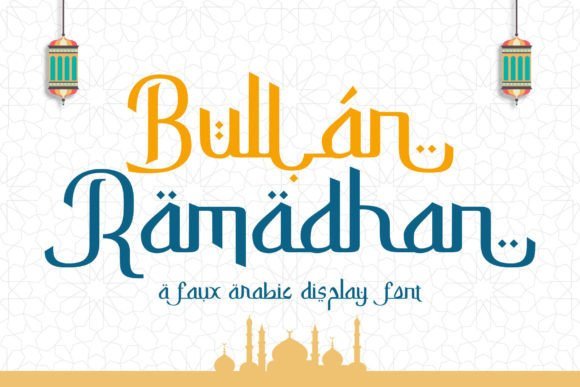
The Perfect Blend of Modernity and Tradition: Introducing the Bullan Ramadhan Font
As designers, we often find ourselves searching for the perfect font to capture the essence of a project. Whether it’s a branding campaign or a poster for a cultural event, we want a font that speaks to our audience and sets the tone for the message we’re trying to convey. For many designers, finding a font that perfectly balances modernity and tradition can be a challenge.
Enter the Bullan Ramadhan Font, a clean, modern, and faux Arabic display font designed to evoke the beauty and elegance of Arabic calligraphy. This versatile font is perfect for a wide range of applications, from logos and business cards to websites and posters. With its unique blend of modernity and tradition, the Bullan Ramadhan Font is a valuable addition to any designer’s toolkit.
- Unique Characteristics: Designed specifically for Ramadan and Islamic events, featuring intricate calligraphy and traditional Arabic motifs.
Bullan Ramadhan Font Review
I recently had the chance to work with the “Bullan Ramadhan Font” and I must say, it’s an interesting typeface. Here’s my honest review:
- Unique and elegant design: The font has a beautiful, flowing script that’s perfect for titles, headings, or any text that needs a touch of elegance.
- Cultural significance: As the name suggests, the font is inspired by the Islamic tradition of Ramadan, making it a great choice for designers looking to incorporate cultural themes into their work.
- Good legibility: The font is easy to read, even at smaller sizes, making it a great choice for body text or captions.
- Limited character set: The font’s character set is limited, which may make it difficult to use for languages that require a wider range of characters.
- Not suitable for body text: While the font is legible, it’s not designed for large blocks of text, so it’s best used for titles, headings, or short passages.
Overall, the “Bullan Ramadhan Font” is a great choice for designers looking to add a touch of elegance and cultural significance to their work. However, it’s not suitable for large blocks of text or languages that require a wider range of characters.
The Bullan Ramadhan Font is ideal for creating Islamic-themed designs, such as Ramadan calendars, prayer cards, and motivational posters. To get the most out of this font, use it in conjunction with other Islamic-inspired graphics and colors.
Some common use cases include:
- Ramadan-themed social media posts
- Islamic event invitations
- Personalized prayer cards
Naskh
Naskh is a classic Arabic calligraphy style that is often used in formal and traditional designs. It is characterized by its elegant and refined lines, making it suitable for use in logos, business cards, and other professional materials. Compared to Bullan Ramadhan Font, Naskh has a more traditional feel and is often used in formal settings, whereas Bullan Ramadhan Font is more modern and playful.
Jalal Amiry
Jalal Amiry is a beautiful and elegant Arabic font that is inspired by traditional Persian calligraphy. It is suitable for use in luxury brands, high-end designs, and cultural events. Compared to Bullan Ramadhan Font, Jalal Amiry has a more sophisticated and refined feel, making it perfect for use in high-end designs.
Reem Khera
Reem Khera is a modern and bold Arabic font that is inspired by traditional Indian calligraphy. It is suitable for use in streetwear brands, fashion designs, and urban events. Compared to Bullan Ramadhan Font, Reem Khera has a more edgy and bold feel, making it perfect for use in modern and trendy designs.